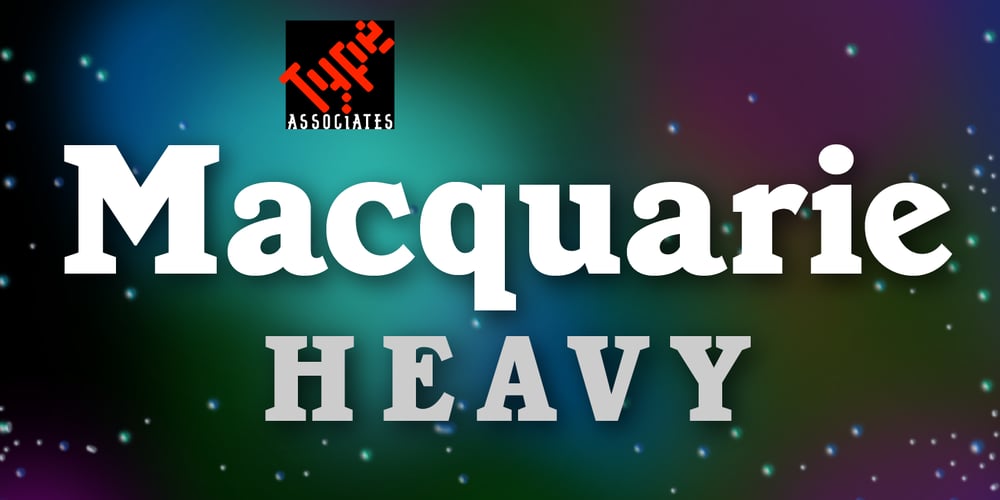
Macquarie Heavy Font Family was designed by published by Type Associates. Macquarie Heavy contains 1 styles and family package options. Macquarie Heavy was used for a logo back in the mid nineties and never completed until recently when I decided to revive it. It works very well in all-caps blocky headlines and is surprisingly legible in lowers with plenty of strength.